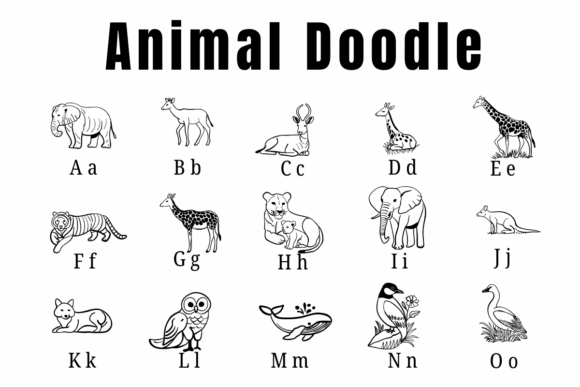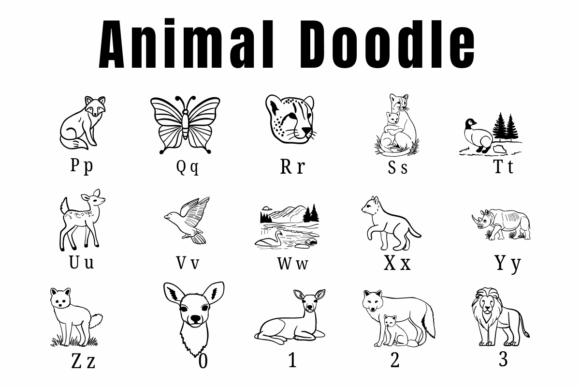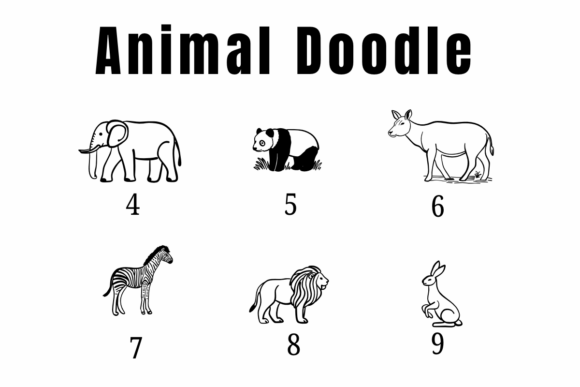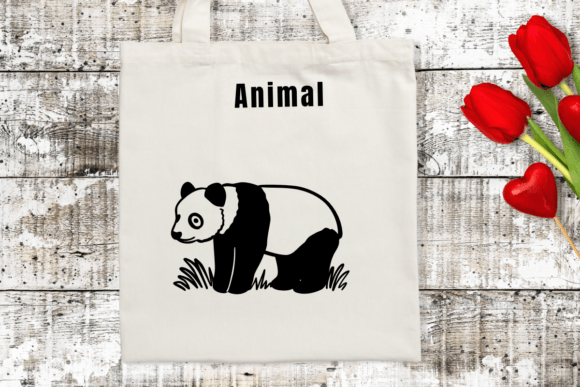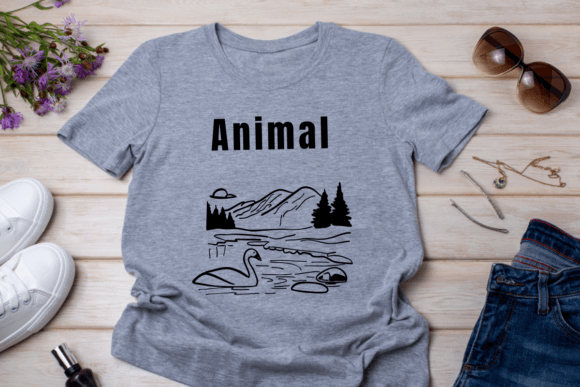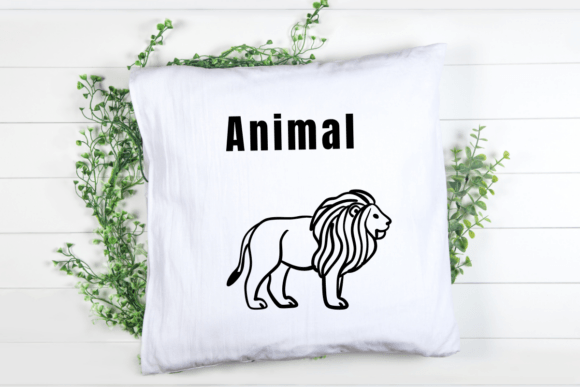
Unleashing Your Creativity with Animal Doodle Font
Remember the moment when you first saw a beautifully crafted invitation at a friend’s wedding? The intricate details, the personalized touch, and the overall aesthetic that left you in awe? That’s what happens when creativity meets imagination, and that’s exactly what the Animal Doodle Font can bring to your projects.
This charming dingbats font boasts a sketched style that’s perfect for adding a personal touch to your creative endeavors. From wedding invitations to DIY crafts, decorations, logos, and more, the Animal Doodle Font is an invaluable asset for designers looking to elevate their designs.
With its unique and playful style, this font is sure to spark inspiration and bring your ideas to life. Whether you’re a seasoned designer or a hobbyist, the Animal Doodle Font is a valuable addition to your creative toolkit, waiting to unleash its magic on your next project.
Animal Doodle Font Key Features
- Unique Hand-Drawn Style: The Animal Doodle Font features a playful, hand-drawn design that adds a touch of whimsy to any text.
- Customizable: The font includes a range of customizable options, including color, size, and spacing, allowing designers to tailor the look to their specific needs.
- Extensive Character Set: Includes a comprehensive set of characters, including uppercase and lowercase letters, numbers, and punctuation marks.
- Easy to Use: The font is designed to be easy to use, with a clear and intuitive design that makes it simple to apply to text and other design elements.
Review: Animal Doodle Font
Overall, I’d say the Animal Doodle Font is a fun, whimsical addition to any design project. ✨ It’s perfect for kids’ books, educational materials, or even advertisements that need a playful touch. The font is highly customizable, with a range of colors and line styles to choose from. ✨
One of the things I love about this font is its versatility. It’s not just limited to a specific animal theme – you can use it for any illustration or doodle you can think of. ✨
- Perfect for kids’ books and educational materials
- Can be used for a wide range of illustrations and doodles
- Some users may find the font a bit too playful or childish for certain designs
- The font may not be suitable for formal or professional projects
- The customization options can be overwhelming for beginners
- ⚠️ Limited to a single font style, no variations
Overall, I’d give the Animal Doodle Font 4 out of 5 stars. It’s a fun and versatile font that’s perfect for certain types of projects. However, it may not be the best choice for more formal or professional designs.
Tips for Getting the Most Out of the Animal Doodle Font
Use the Animal Doodle Font to add a playful and whimsical touch to your designs.
Combine the font with other design elements, such as illustrations or graphics, to create a cohesive and engaging visual identity.
The Animal Doodle Font is ideal for:
Children’s book covers and illustrations
Party invitations and decorations
Food and beverage branding
Education and entertainment marketing materials
What is the recommended font size for optimal readability with the Animal Doodle Font?
The recommended font size for optimal readability with the Animal Doodle Font is between 12pt and 24pt, depending on the design application and intended use. Experiment with different font sizes to find the best balance between readability and visual impact.